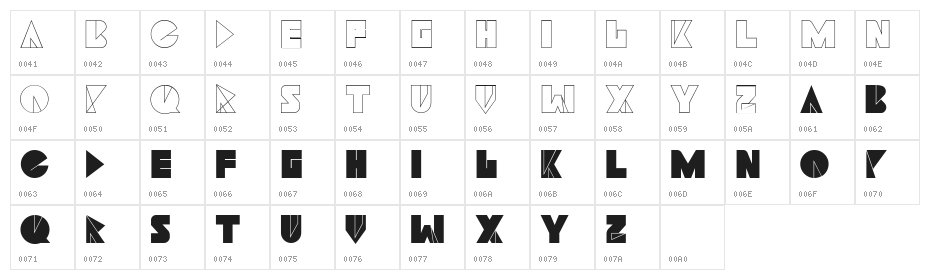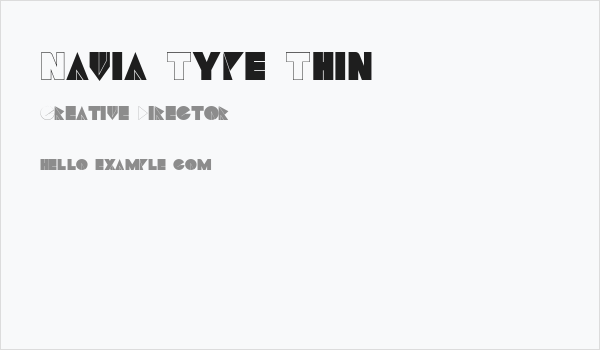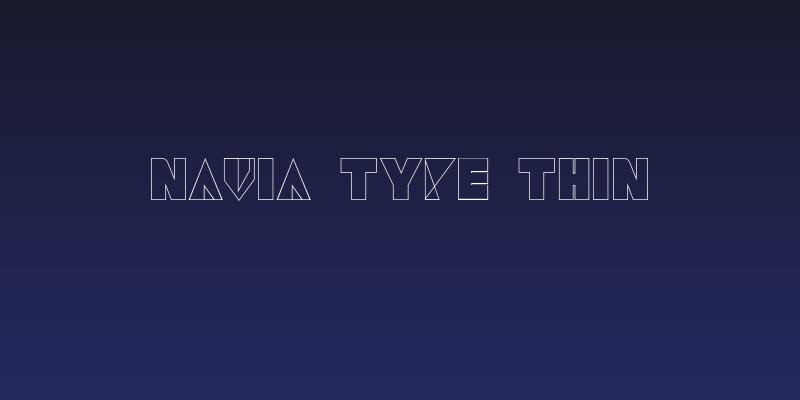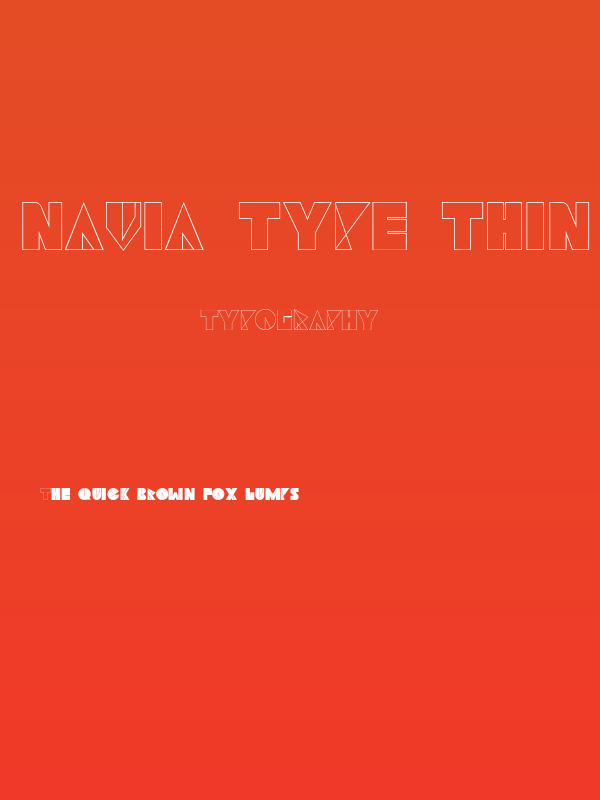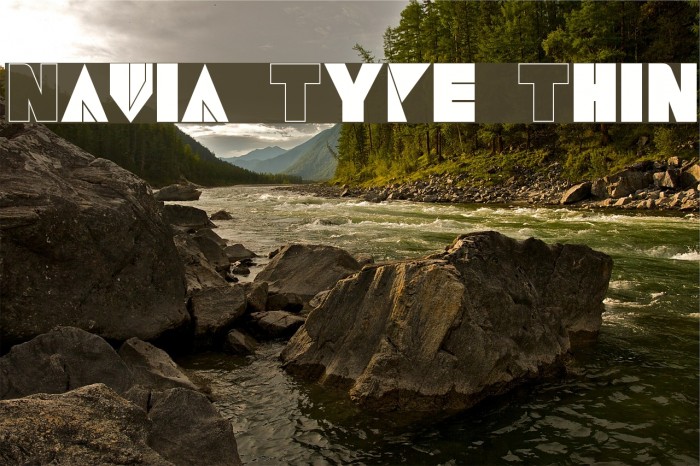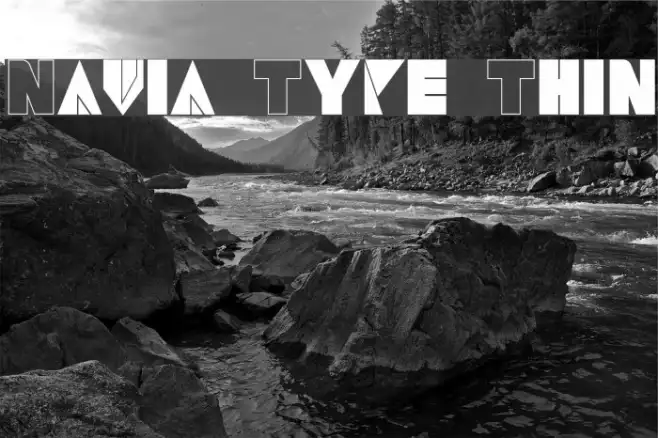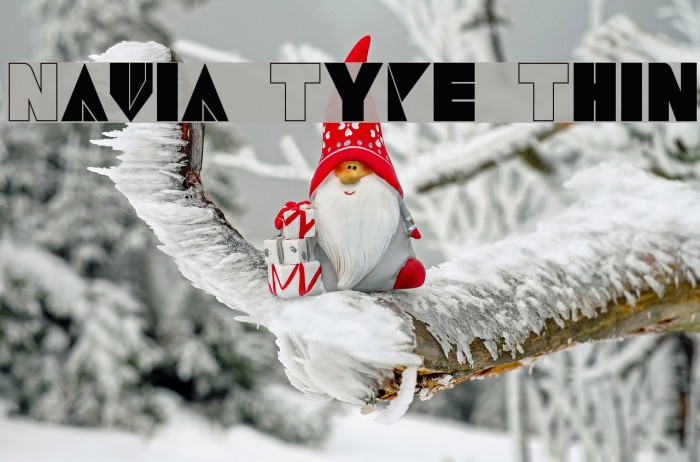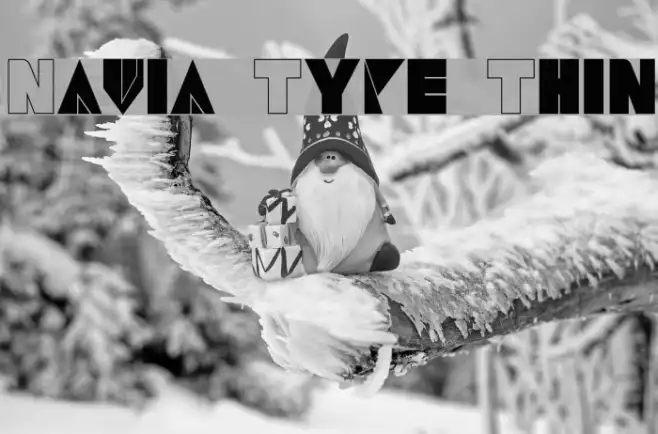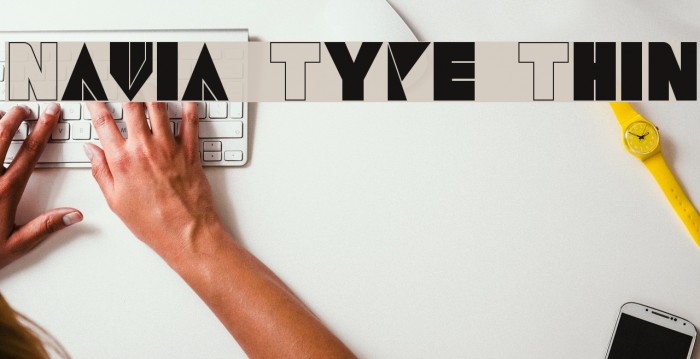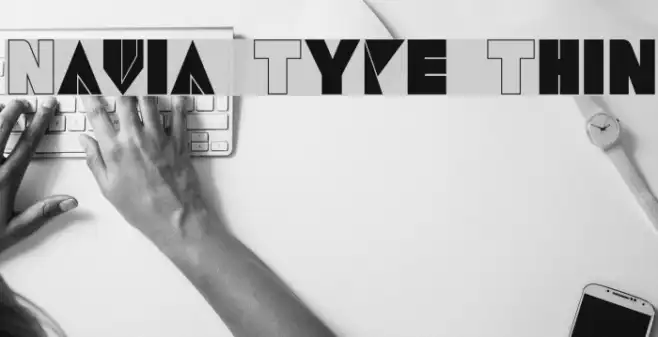
Navia Type Thin Font
Navia Type Thin Description
This font presents a striking geometric design with a modern and bold aesthetic. Each character is constructed using a combination of sharp angles and clean lines, creating a visually impactful and dynamic appearance. The uppercase letters are particularly distinctive, featuring unique shapes that break away from traditional forms. The font's style is both futuristic and artistic, making it suitable for creative and contemporary projects. Its boldness and geometric nature make it stand out, while the consistent line thickness adds to its cohesive look.
| Proposed Projects | Ideal for branding, posters, album covers, and any project requiring a modern, artistic touch. |